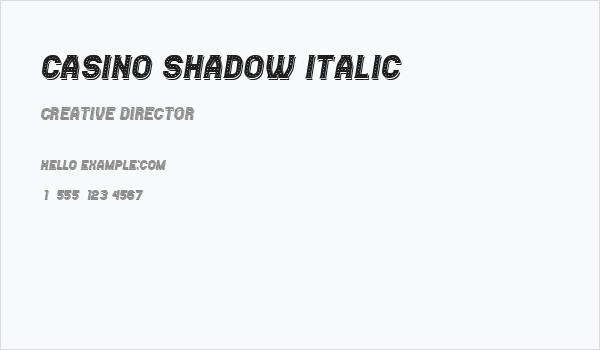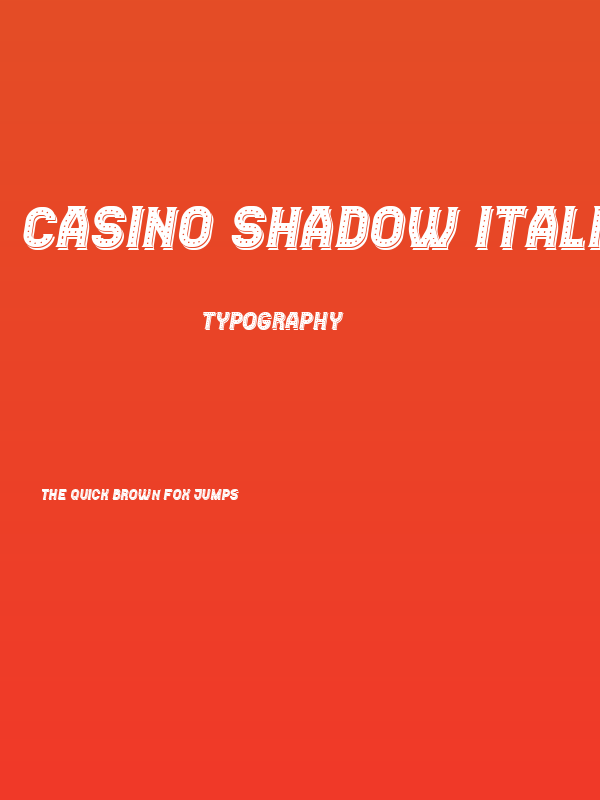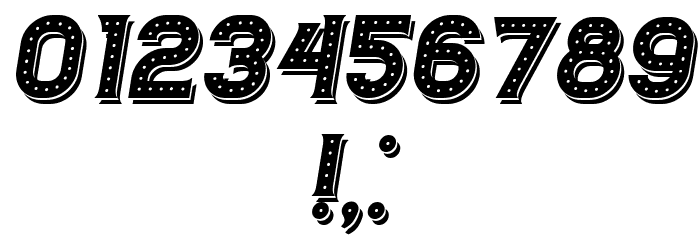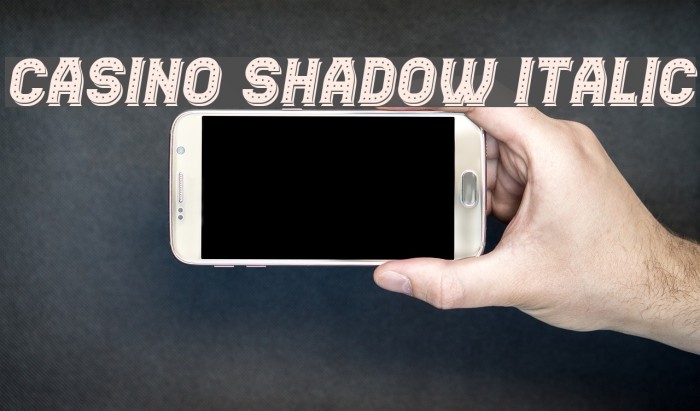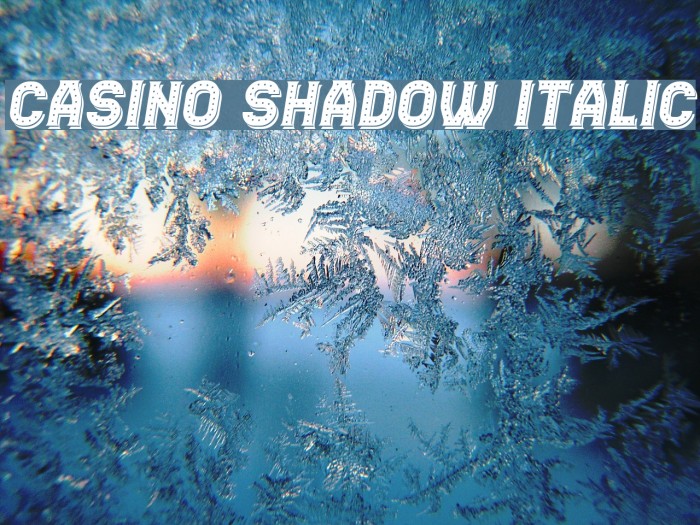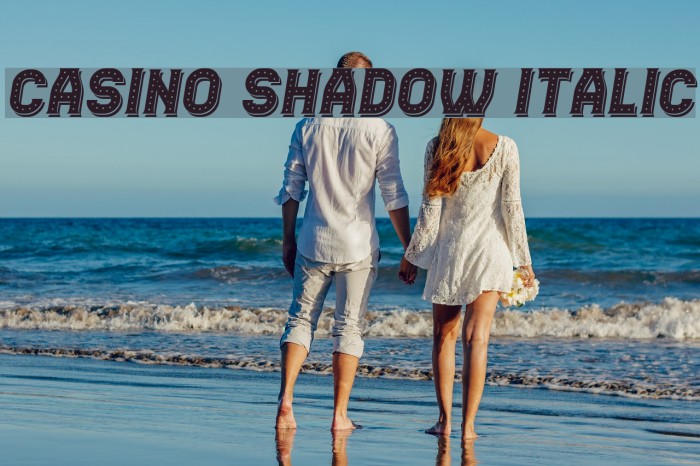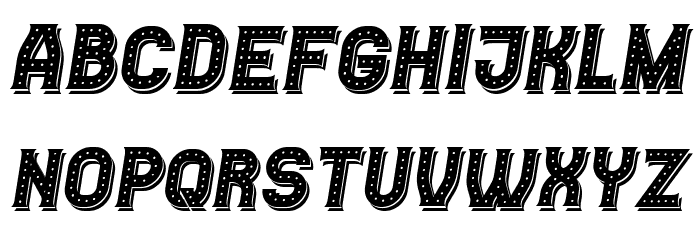
Casino Shadow Italic Font
Casino Shadow Italic Description
This font features a bold and decorative style with a shadow effect that gives it a three-dimensional appearance. The characters are uppercase and have a distinct italic slant, adding a dynamic and playful feel. Each letter is outlined with a dotted pattern, enhancing its visual interest and making it stand out. The font is well-suited for eye-catching designs, with a strong presence that commands attention. Its unique style is reminiscent of vintage casino signage, making it ideal for themed projects that require a touch of nostalgia and flair.
| Overall Style | Vintage |
| Proposed Projects | Ideal for vintage-themed designs, casino signage, posters, and branding projects that require a bold and playful aesthetic. |